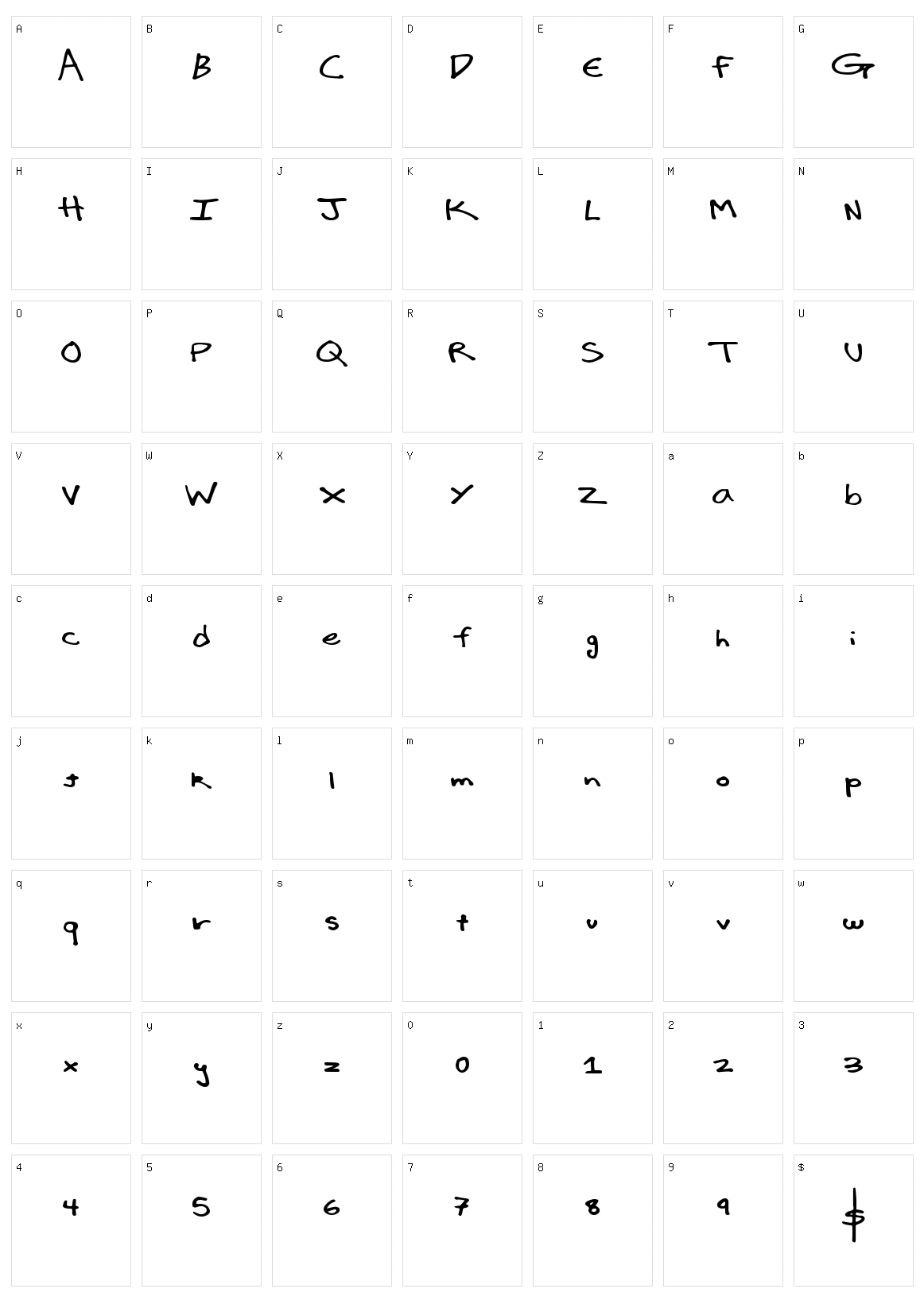
The free font Luxury Import is carefully designed by Xerographer Fonts, showcasing a thoughtful balance of creativity and usability and falls under the Script font style. When you download the ZIP file, it contains only 8.79 KB of font files, making it lightweight and quick to download. Please review the license details below to understand permitted usage and distribution rights. If license information is not available, we recommend using this font for personal projects only or contacting the author directly for commercial usage permissions.